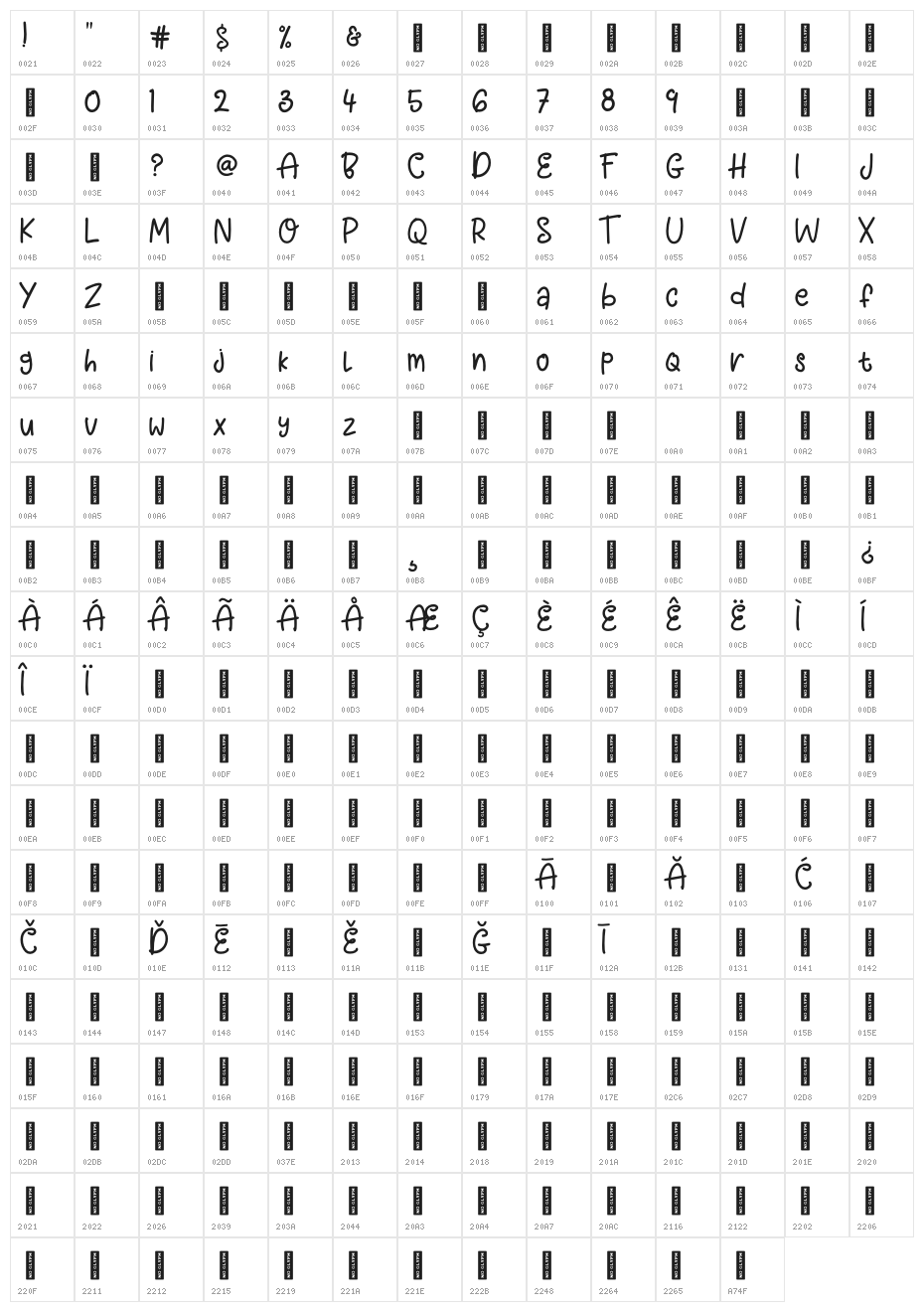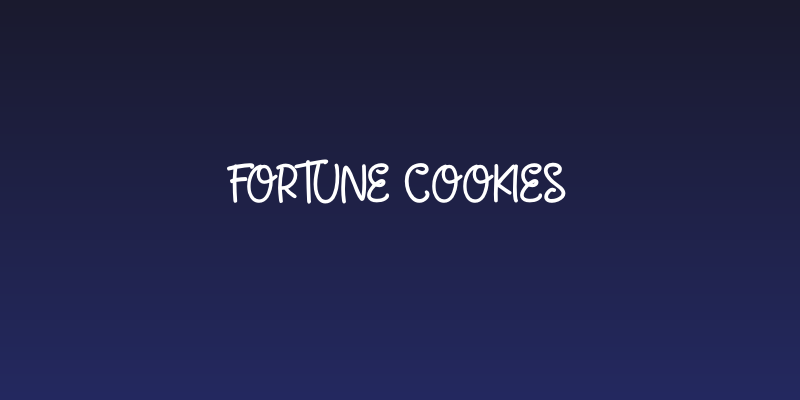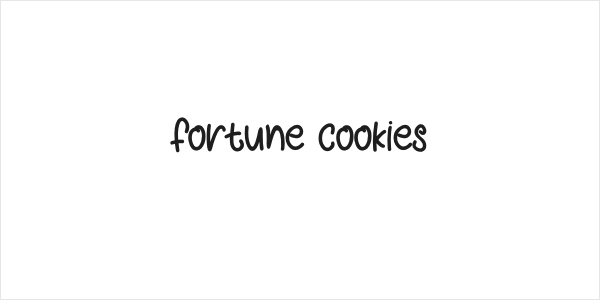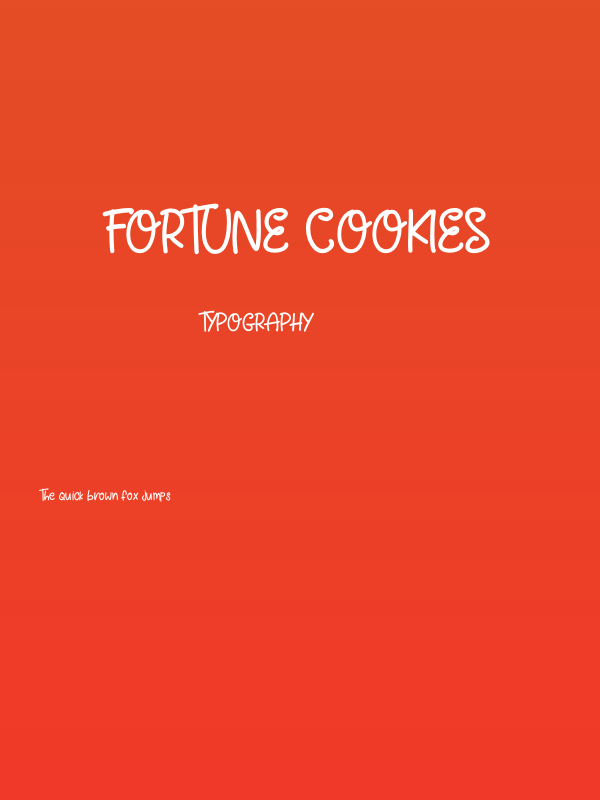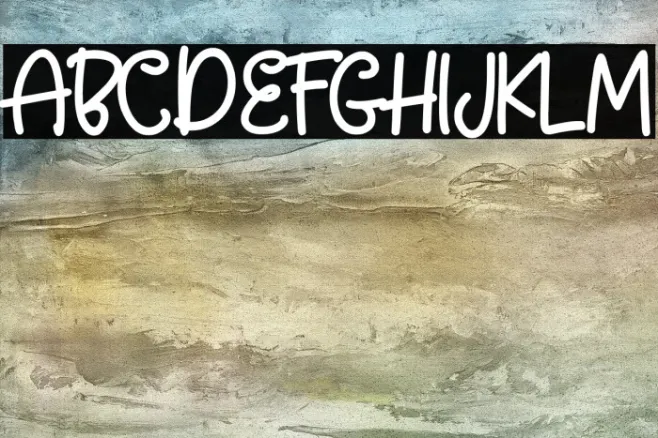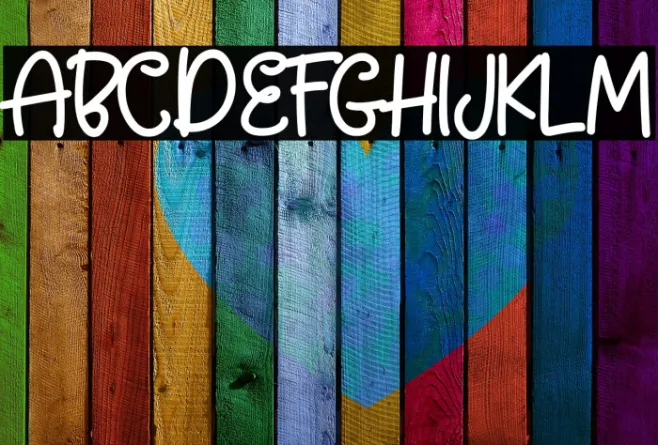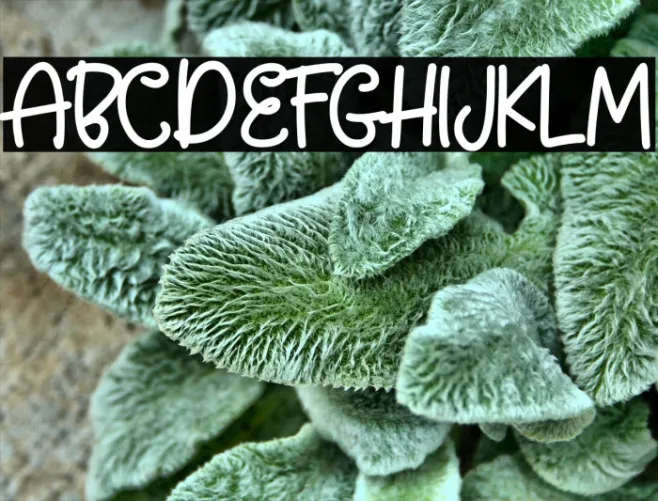
fortune cookies Font
fortune cookies Description
This playful and casual font features a handwritten style with a smooth, flowing appearance. The letters are rounded and slightly irregular, giving them a friendly and approachable feel. The uppercase and lowercase characters maintain a consistent style, with a slight slant that adds to the informal aesthetic. The numbers are clear and easy to read, matching the overall style of the alphabet. Special characters are included, though some are missing glyphs, which may limit their use in certain contexts. This font is ideal for projects that require a personal touch or a relaxed vibe.
| Proposed Projects | Greeting cards, invitations, children's books, casual branding, and social media graphics. |